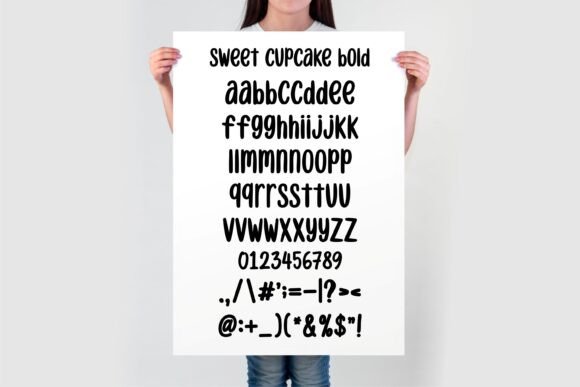
Sweet Cupcake Bold Font: The Perfect Addition to Your Creative Projects
Are you looking for a font that can add a fun and playful touch to your creative projects? Look no further than Sweet Cupcake Bold Font. This cute and playful handwritten font is perfect for a variety of projects, from t-shirts and mugs to greeting cards and posters. In this article, we’ll take a closer look at the Sweet Cupcake Bold Font and explore its features, benefits, and uses.
What is Sweet Cupcake Bold Font?
Sweet Cupcake Bold Font is a handwritten font with a bold style that is perfect for adding a fun touch to your projects. Its rounded letters and smooth design make it ideal for a variety of creative projects, from kids’ designs to trendy aesthetics. The font includes uppercase and lowercase letters, numbers, and punctuation, ensuring versatility for various creative ideas.
Key Features of Sweet Cupcake Bold Font
- Cute and Playful Design: Sweet Cupcake Bold Font has a cute and playful design that is perfect for adding a fun touch to your projects.
- Rounded Letters and Smooth Design: The font features rounded letters and a smooth design that makes it ideal for a variety of creative projects.
- Uppercase and Lowercase Letters: The font includes both uppercase and lowercase letters, ensuring versatility for various creative ideas.
- Numbers and Punctuation: The font also includes numbers and punctuation, making it perfect for a variety of projects.
Benefits of Using Sweet Cupcake Bold Font
There are many benefits to using Sweet Cupcake Bold Font in your creative projects. Here are a few:
- Adds a Fun Touch: Sweet Cupcake Bold Font adds a fun and playful touch to your projects, making them perfect for kids’ designs and trendy aesthetics.
- Versatile: The font is versatile and can be used for a variety of projects, from t-shirts and mugs to greeting cards and posters.
Uses of Sweet Cupcake Bold Font
Sweet Cupcake Bold Font is perfect for a variety of creative projects, including:
- T-Shirts: The font is perfect for designing t-shirts for kids and adults alike.
- Mugs: The font is great for designing mugs for gifts or personal use.
- Greeting Cards: The font is perfect for designing greeting cards for special occasions.
- Invitations: The font is great for designing invitations for parties and special events.
- Posters: The font is perfect for designing posters for kids’ events or trendy aesthetics.
- Branding: The font is great for branding and can be used to create a unique and playful brand identity.
Who Can Use Sweet Cupcake Bold Font?
Sweet Cupcake Bold Font is perfect for a variety of users, including:
- Designers: Graphic designers, crafters, and DIY enthusiasts can use the font to create unique and playful designs.
- Crafters: Crafters who use cutting machines like Cricut and Silhouette can use the font to create custom designs.
- Teachers: Teachers can use the font to create fun and engaging materials for their students.
- Kids: Kids can use the font to create fun and playful designs for school projects or personal use.
Sweet Cupcake Bold Font is a cute and playful handwritten font that is perfect for adding a fun touch to your creative projects. Its rounded letters and smooth design make it ideal for a variety of projects, from t-shirts and mugs to greeting cards and posters. The font is versatile, easy to use, and compatible with Cricut, Silhouette, and other cutting machines. Whether you’re a designer, crafter, or DIY enthusiast, Sweet Cupcake Bold Font is a great addition to your font collection.